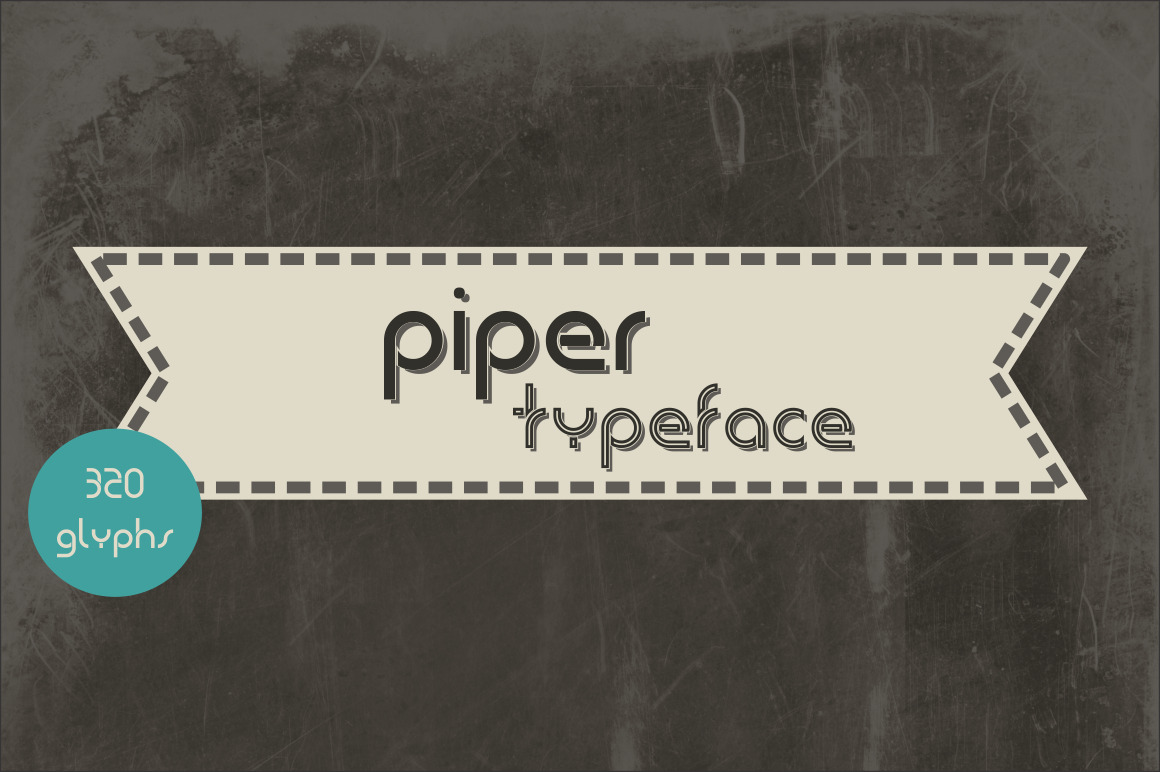
Piper Typeface
Piper is a vintage sans serif type family of three weights (regular, inline & thin) plus two matching shadows (regular & striped), ideal for both on screen and print use.
It contains eight files (each incuding 320 glyphs), all of them perfectly overlaying, for a variety of results, depending on your needs.